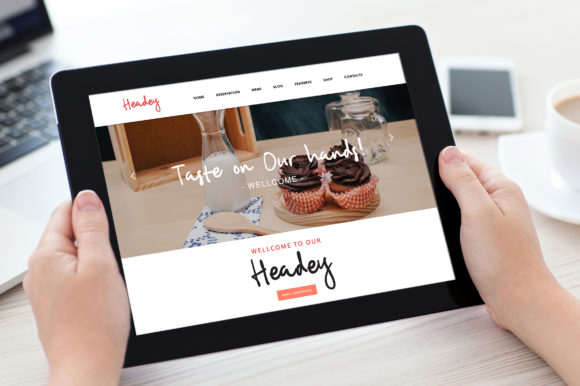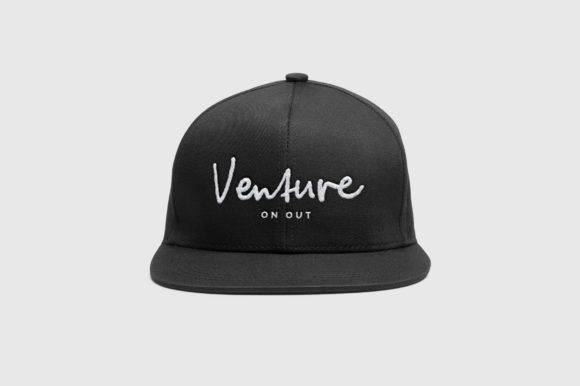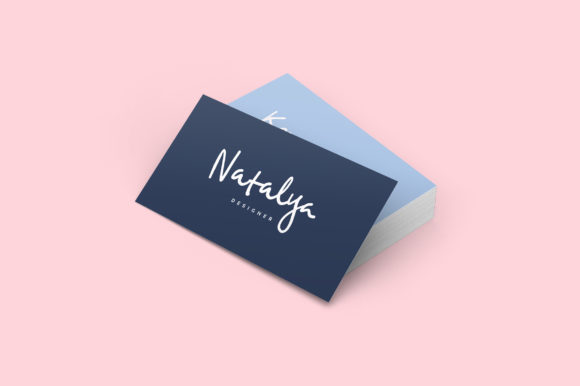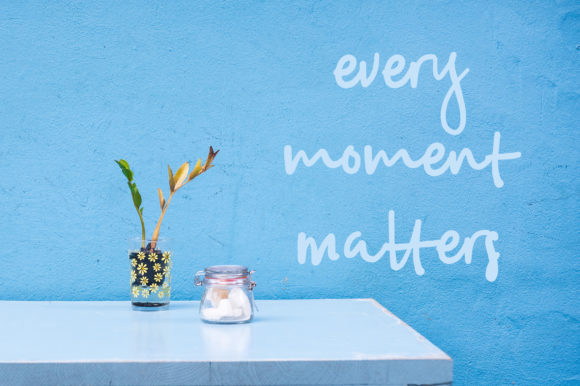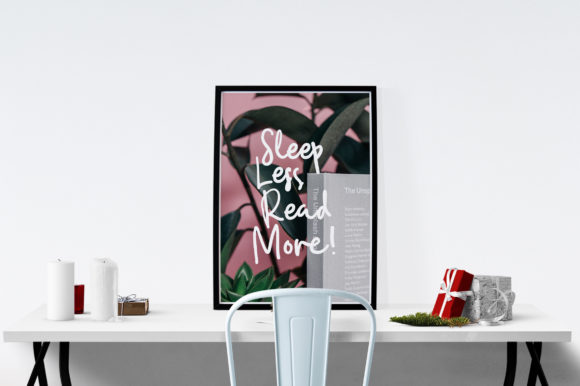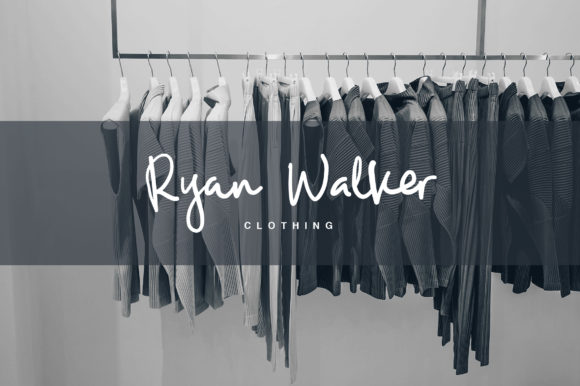
Introducing Ameliana Script Font: Elevate Your Designs with a Sweet and Authentic Touch
Are you tired of using the same old fonts in your design projects? Do you want to add a touch of personality and uniqueness to your creations? Look no further than Ameliana Script Font! This beautiful script font is designed to bring a sweet and authentic feel to your designs, with a cool twist that sets it apart from the rest.
What Makes Ameliana Script Font Special?
Ameliana is more than just a font – it’s an experience. With its flowing curves and elegant lines, this script font is perfect for adding a touch of sophistication and whimsy to any design project. Whether you’re working on a logo, branding materials, or marketing collateral, Ameliana is sure to turn your design into a true standout.
The Characteristics of Ameliana Script Font
So, what makes Ameliana Script Font so unique? Here are just a few of its key characteristics:
- Sweet and Authentic: Ameliana has a genuine, handmade feel that makes it perfect for designs that require a personal touch.
- Cool Twist: This script font has a unique flair that sets it apart from more traditional script fonts.
- Elegant Lines: Ameliana’s flowing curves and lines create a sense of movement and fluidity, making it perfect for designs that require a sense of dynamism.
- Versatile: Whether you’re working on a logo, business card, or social media graphic, Ameliana is versatile enough to fit any design project.
How to Use Ameliana Script Font in Your Designs
Ready to get started with Ameliana Script Font? Here are a few tips for incorporating it into your designs:
- Pair it with a bold font: Ameliana’s elegant lines and curves are perfect for headlines and titles. Pair it with a bold font for a striking contrast.
- Use it for branding materials: Ameliana’s sweet and authentic feel makes it perfect for branding materials, such as logos and business cards.
- Add a personal touch: Use Ameliana to add a personal touch to your designs, such as in invitations, greeting cards, and other creative projects.
Why Designers and Crafters Love Ameliana Script Font
Ameliana Script Font has quickly become a favorite among designers and crafters, and for good reason. Here are just a few reasons why:
- Unique and eye-catching: Ameliana’s cool twist and elegant lines make it a standout in any design project.
- Easy to read: Despite its ornate feel, Ameliana is surprisingly easy to read, making it perfect for designs that require a lot of text.
- Versatile: Whether you’re working on a digital project or a print project, Ameliana is versatile enough to fit any design need.
In conclusion, Ameliana Script Font is a beautiful and unique font that is sure to elevate your designs to the next level. With its sweet and authentic feel, cool twist, and elegant lines, Ameliana is perfect for designers and crafters who want to add a touch of personality and whimsy to their creations. So why wait? Try Ameliana Script Font today and see the difference it can make in your designs!